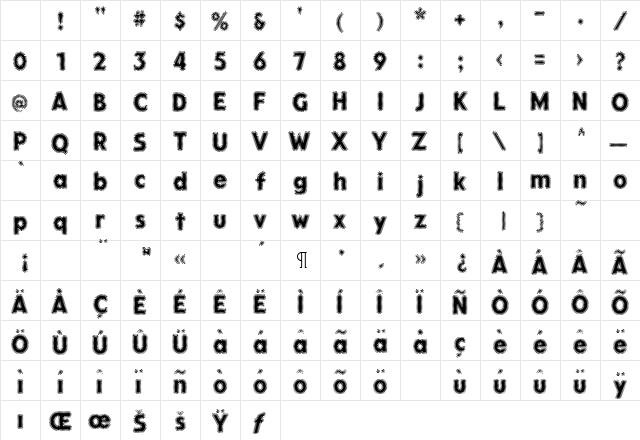
KolkFizzy Regular
Design Context for KolkFizzy
KolkFizzy is a composed and adaptable typeface that performs quietly and consistently across a wide range of design contexts.
Pro Tip: Use KolkFizzy in both headline and body roles to test its range before committing to a single application.